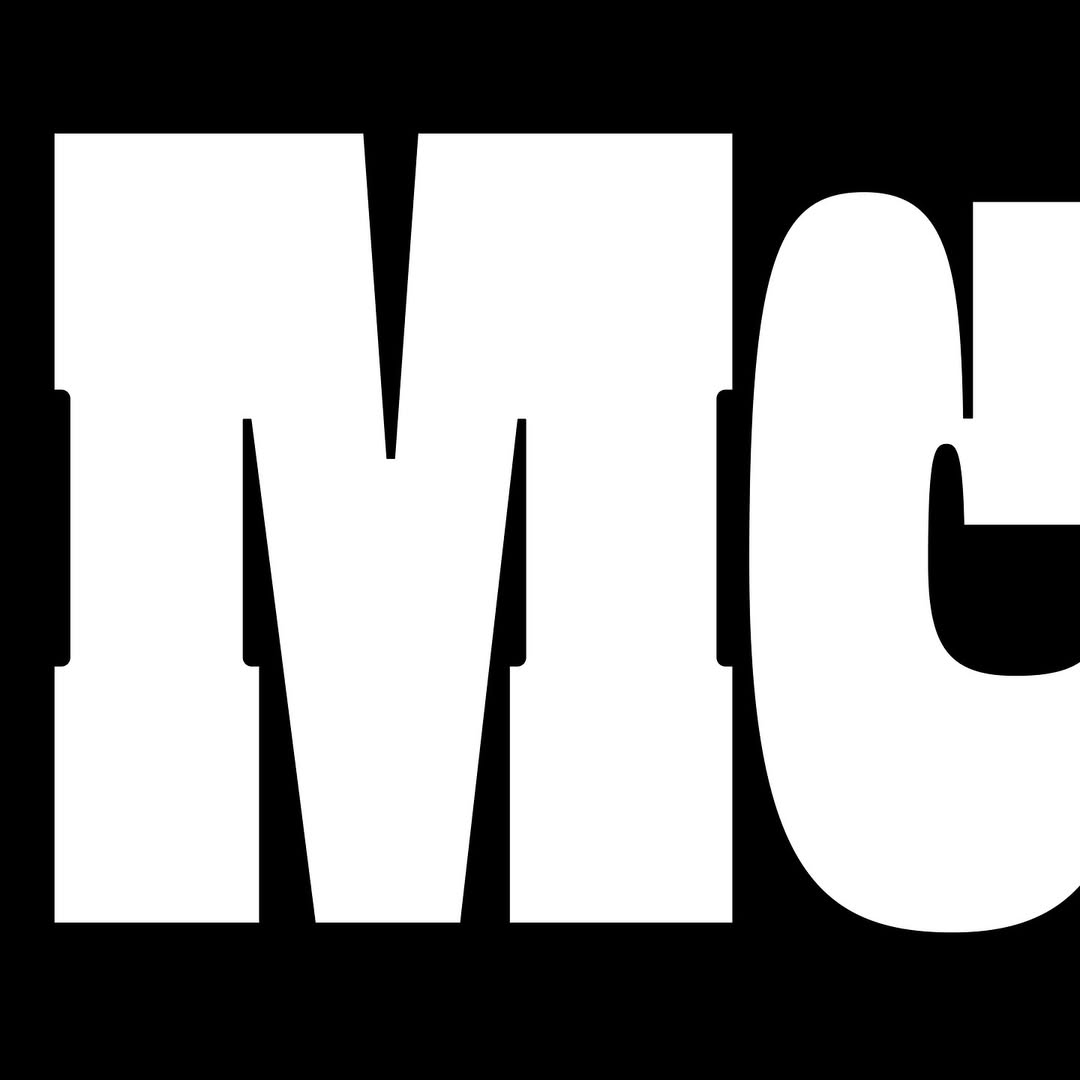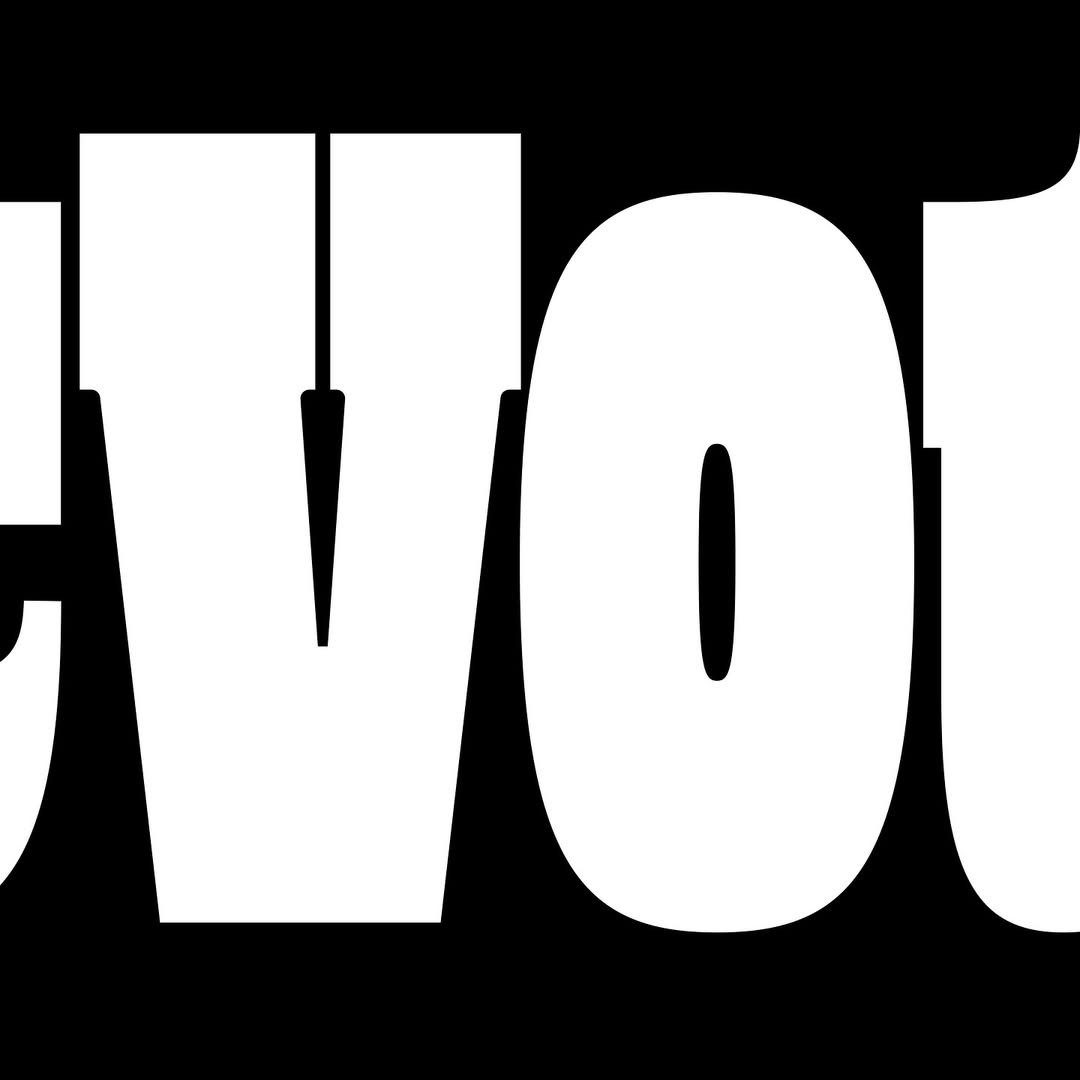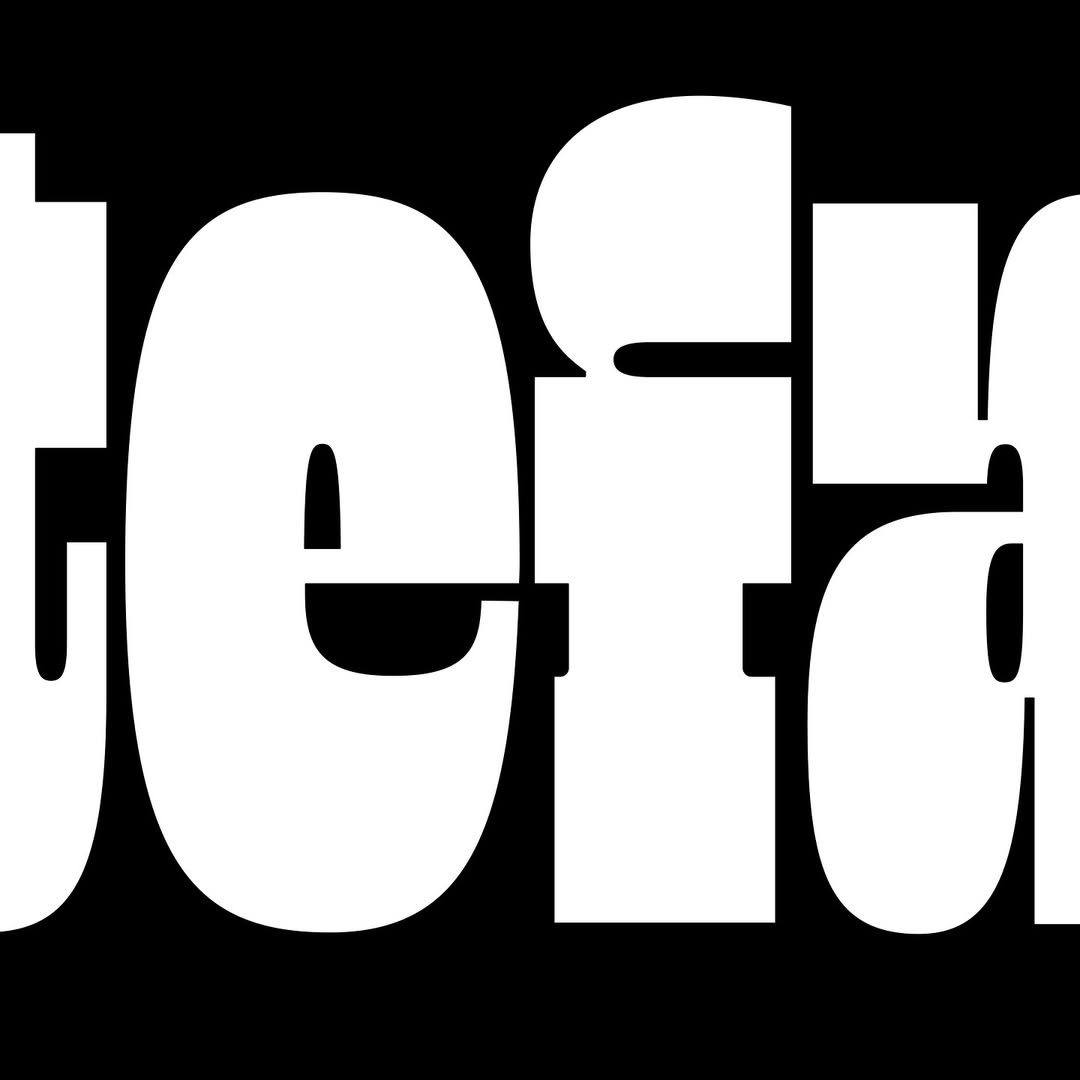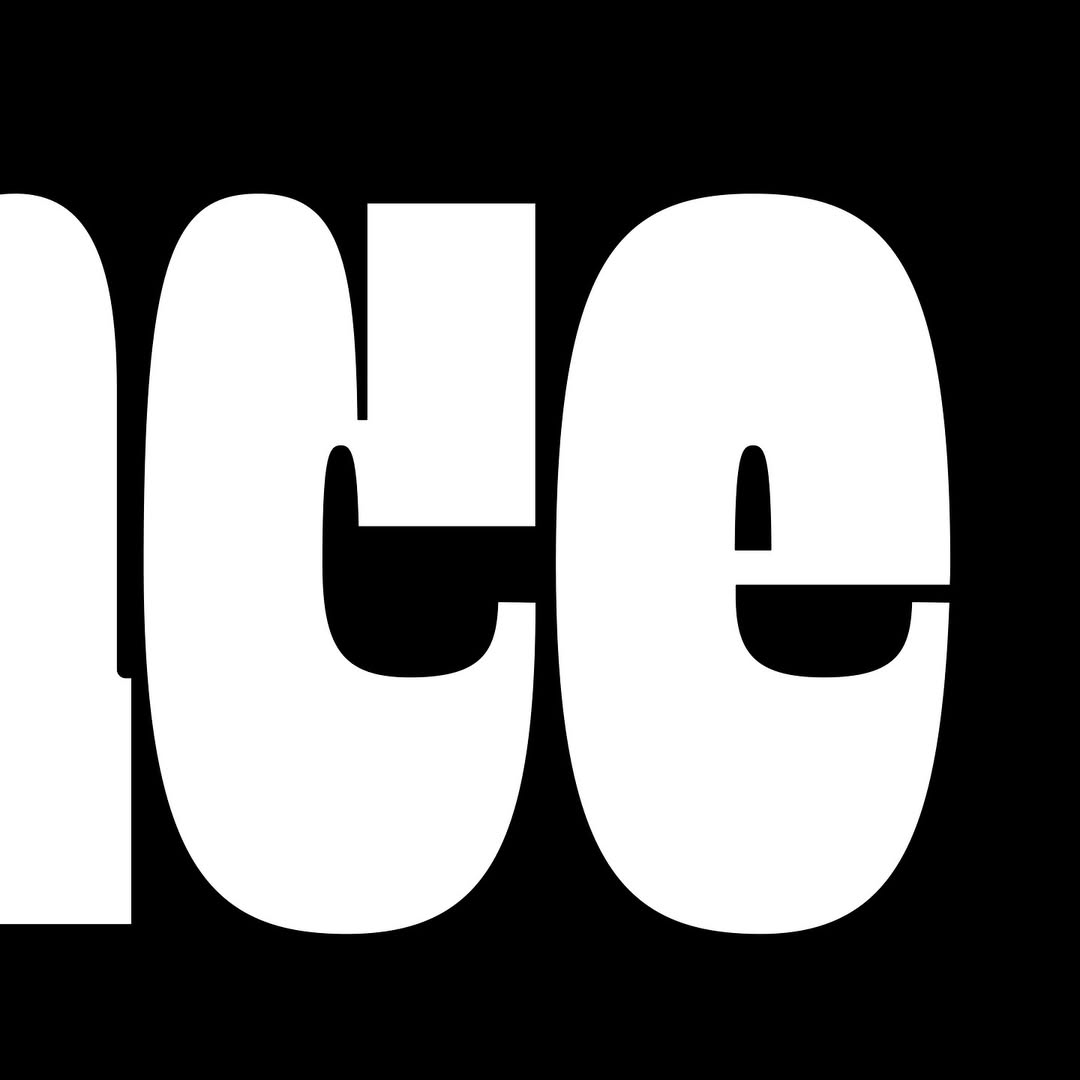
F37 Roy
Meet Roy, an all-in-one take on the classic Western style, fresh from the creative mind of Alec Tear.
F37 Roy belongs to a familiar genre. Based on the reverse-contrast Clarendon, this genre evokes memories of the bygone gunslinging age nostalgic to us now only through cinema and clichés. But Roy is far more than a half-remembered stereotype. Alec Tear has injected F37 Roy with a contemporary touch, dragging the genre out of the spaghetti Westerns and into the present day. F37 Roy is tightly packed yet bursting with features—deep ink traps, clean lines, and tantalising negative space, to name a few. Available in four weights across three optical sizes, F37 Roy has a style for every occasion.
Alec Tear
Alec Tear is an independent British designer and lettering artist who partners with creative agencies, brands and other independent specialists all over the world to produce beautiful, effective and original design solutions.
After gaining an extensive background in branding, packaging and creative problem-solving at acclaimed design agency Jones Knowles Ritchie, Alec set up his own practice where he combines his experience of working with brands of all sizes, with his unwavering passion for lettering art which ultimately drives the bold and typographic nature of his work.
Interview
Tell us about the inspiration behind your collaboration with F37®×. If it was an unused concept, what was the potential use case for it.
I had always wanted to take on the challenge of designing a contemporary slab typeface, so Roy is simply a result of that. By minimizing the width of the serifs and maximizing the x-height Roy encourages punchy graphic typographic layouts that are jam-packed with personality.
When starting the process of creating your font, what typographic conventions did you look to break or experiment with? Or were there conventions of functionality you championed?
I experimented with introducing extreme curvaceous contrast to a style of type that's typically more rigid. While Roy fully embraces the boxy horizontal rhythm of a traditional slab typeface, it also squeezes cheeky personality into any gaps left behind by the varying stroke widths.
Now that your typeface has launched, what would be your dream project to use your F37® typeface on?
I think Roy would make an incredible title for a Coen Brothers film. Failing that I'd love to see someone paint it on the side of a monster truck.
What have you learnt through developing and creating your own typeface(s) with our F37® type designers?
I've learnt a lot about the alterations and compromises required to translate a characterful display font to a readable text font.
How would you describe your typeface in three words?
Big Cheeky Beefcake